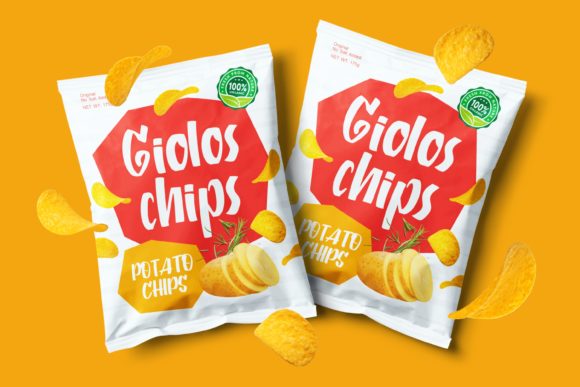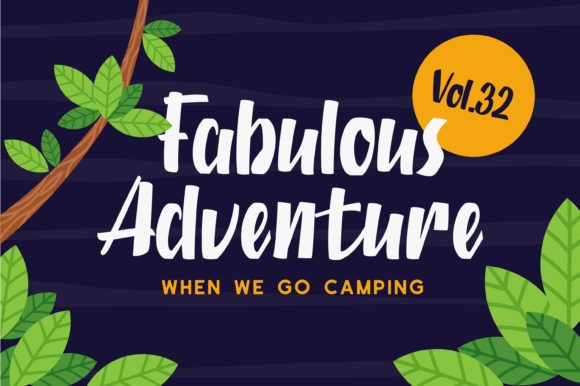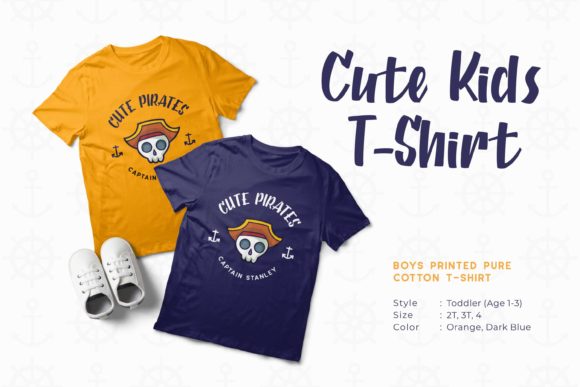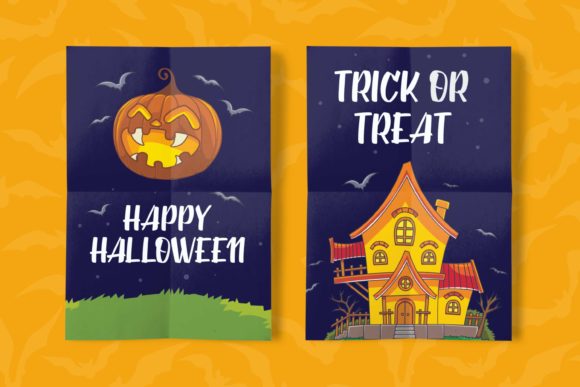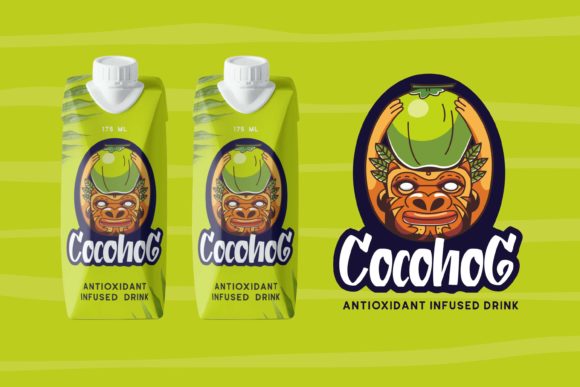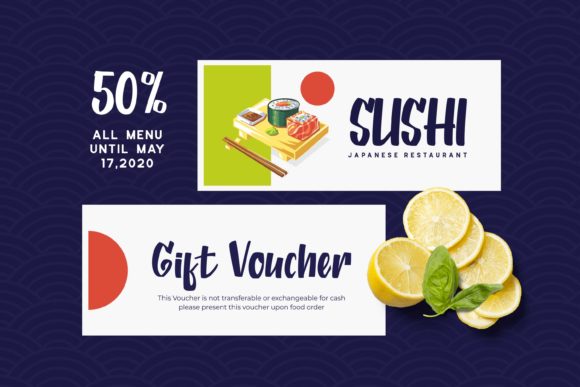
Introduction to Pier Georad Font
Have you ever stared at a blank canvas, eager to bring a creative project to life, only to be met with a blank mind and a sea of possibilities? For designers, this is a familiar feeling, one that can be both exhilarating and intimidating. But what if you had the perfect design resource to spark your imagination and guide your creative journey? Enter Pier Georad Font, a delightful and versatile typeface that’s sure to become your new favorite design companion.
Pier Georad Font is a jolly display font that exudes a warm, down-to-earth charm, making it the perfect addition to any design project. With its unique playfulness and high-quality design, this font is a valuable resource for designers looking to add a touch of personality to their work. Whether you’re working on a crafting project or designing a logo, Pier Georad Font is sure to bring a smile to your face and a touch of magic to your design.
Key Features of Pier Georad Font
- High-quality, professional font suitable for various creative projects
- Perfect for designers and artists working on projects that require a modern, sleek aesthetic
- Unique, bold design elements make it ideal for use in logos, branding materials, and more
Honest Review: Pier Georad Font
I recently stumbled upon the Pier Georad Font, a creative resource that has been gaining popularity among designers. In this review, I’ll share my honest thoughts on its strengths and weaknesses.
- The Pier Georad Font offers a high-quality design that’s perfect for any creative project.
- The transparent background option is a nice touch, allowing for seamless integration into various design contexts.
- The font’s modern aesthetic is versatile and can be used in a wide range of applications.
- The Pier Georad Font may not be suitable for projects requiring a more traditional or classic look.
Overall, the Pier Georad Font is a solid addition to any designer’s toolkit. While it may have some limitations, its high-quality design, free download option, and transparent background feature make it a worthwhile resource for creative projects.
Pier Georad Font
The Pier Georad Font is a versatile design resource ideal for creative projects. Its high-quality, modern design makes it perfect for various applications, including digital and print media.
The Pier Georad Font is ideal for:
- Headings and titles
- Body text in digital and print media
- Branding and marketing materials